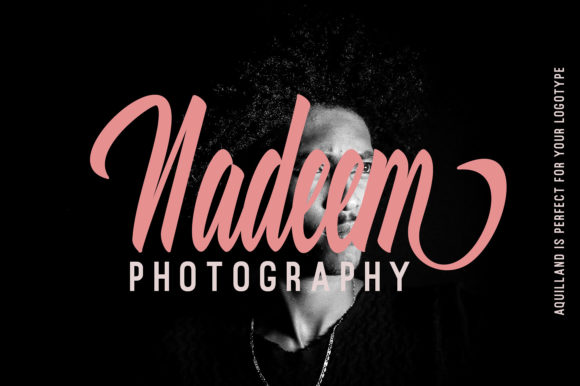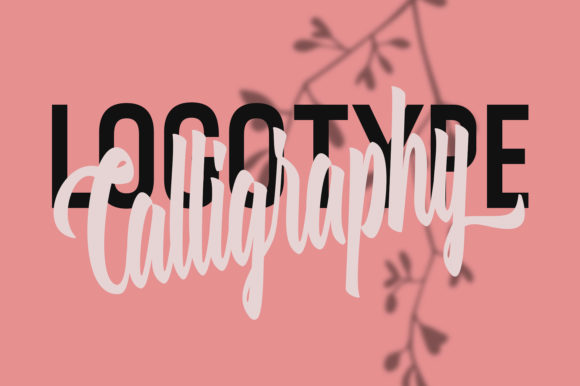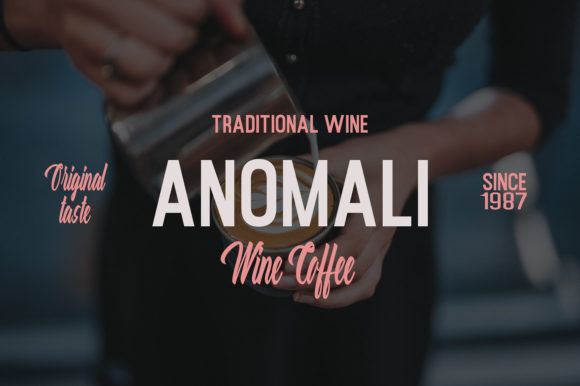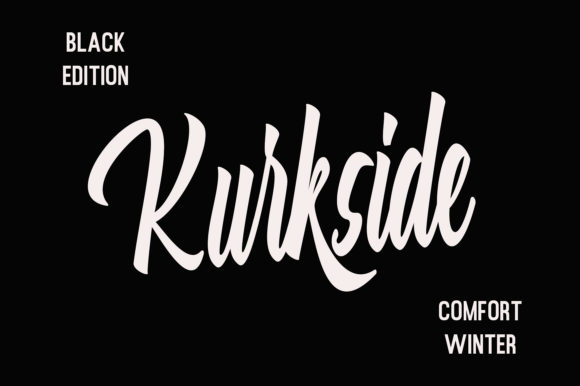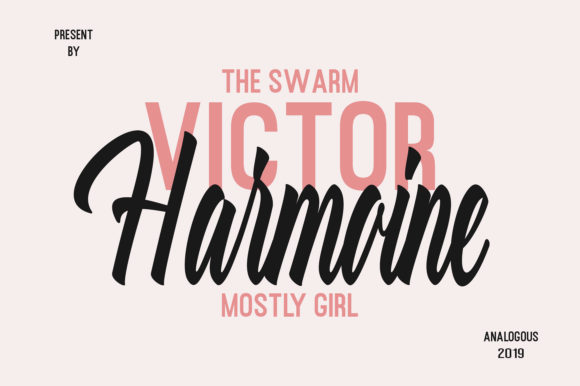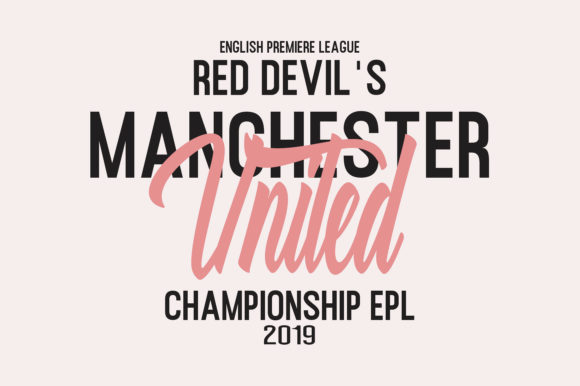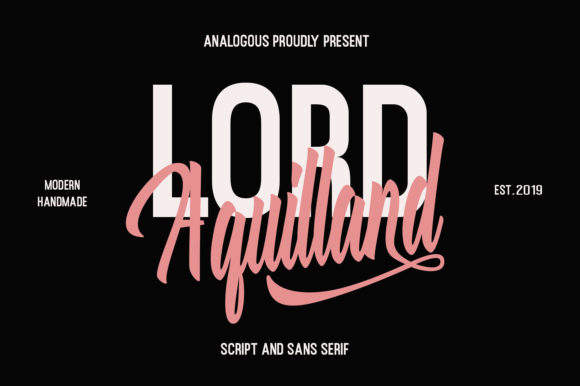
Aquilland Font: A Contemporary Script Masterpiece
Aquilland is a breathtaking script font that embodies contemporary style. Its elegant lines and fluid curves make it perfect for adding a touch of sophistication to any design project. Whether you’re a designer, crafter, or creative hobbyist, Aquilland is sure to impress. ✅
So, what makes Aquilland Font so special? Here are a few things I love:
- ✨ Elegant and modern design: Aquilland’s sleek lines and curves give it a fresh, contemporary feel that’s perfect for modern designs.
- ✅ Highly versatile: This font can be used for a wide range of projects, from logos and branding to invitations and social media graphics.
- 💫 Beautifully crafted: The attention to detail in Aquilland is exceptional, with intricate flourishes and a clear sense of flow.
Of course, no font is perfect, and Aquilland has a few minor quirks:
- 🤔 Limited use of uppercase letters: While the lowercase letters are beautifully designed, the uppercase letters are somewhat limited in their use. ⚠️
- ⚠️ Some glyphs may require manual adjustment: Depending on the project, some glyphs may require manual adjustment to ensure proper spacing and alignment.
The Story Behind Aquilland Font
While the true story behind Aquilland’s creation may be unknown, it’s easy to imagine a designer pouring their heart and soul into crafting such a beautiful font. Perhaps they were inspired by the flowing lines of handwritten calligraphy or the elegance of modern digital design. Whatever the inspiration, the result is a stunning font that’s sure to captivate audiences.
| What is Aquilland Font? | Aquilland Font is a modern script font designed for creative projects, logos, branding, and more. |